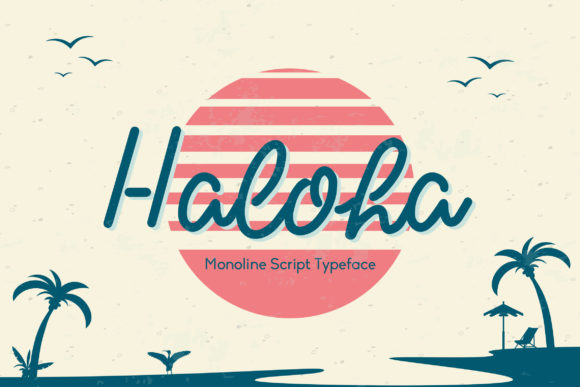
Step into the enchanting world of Haloha Font, an exquisite script font that weaves a tapestry of elegance and harmony in every letter. With its graceful curves and playful flourishes, Haloha breathes life into your designs, transforming them into captivating masterpieces. Unleash your creativity and embark on a journey of visual storytelling, where words become art, and messages resonate with timeless beauty.
Immerse yourself in the endless possibilities that Haloha Font holds. Its delicate charm lends an air of sophistication to crafting projects, bringing handmade cards and invitations to life with a touch of whimsy. Let your digital designs shine with the allure of Haloha, as its enchanting characters dance across screens, captivating your audience with their undeniable allure. In presentations, Haloha Font commands attention, elevating your content to new heights of eloquence and engagement.
With Haloha Font, every word carries weight and meaning, resonating with an emotional depth that transcends mere words. Its versatility knows no bounds, allowing you to craft enchanting logos that leave a lasting impression, design social media posts that sparkle with personality, and create greeting cards that warm the hearts of loved ones.
Haloha Font is more than just a collection of letters; it's an invitation to express yourself with artistry and panache. Its elegant strokes evoke a sense of nostalgia, transporting you to a bygone era of timeless romance and enduring beauty. Whether you're a seasoned designer seeking inspiration or a novice crafter seeking to elevate your creations, Haloha Font is your gateway to a world of boundless creativity.
Join the ranks of discerning designers and creatives who have succumbed to the allure of Haloha Font. Let its enchanting curves guide your imagination, transforming your designs into breathtaking works of art. Embrace the allure of Haloha Font and unlock the door to a world where elegance and beauty reign supreme.